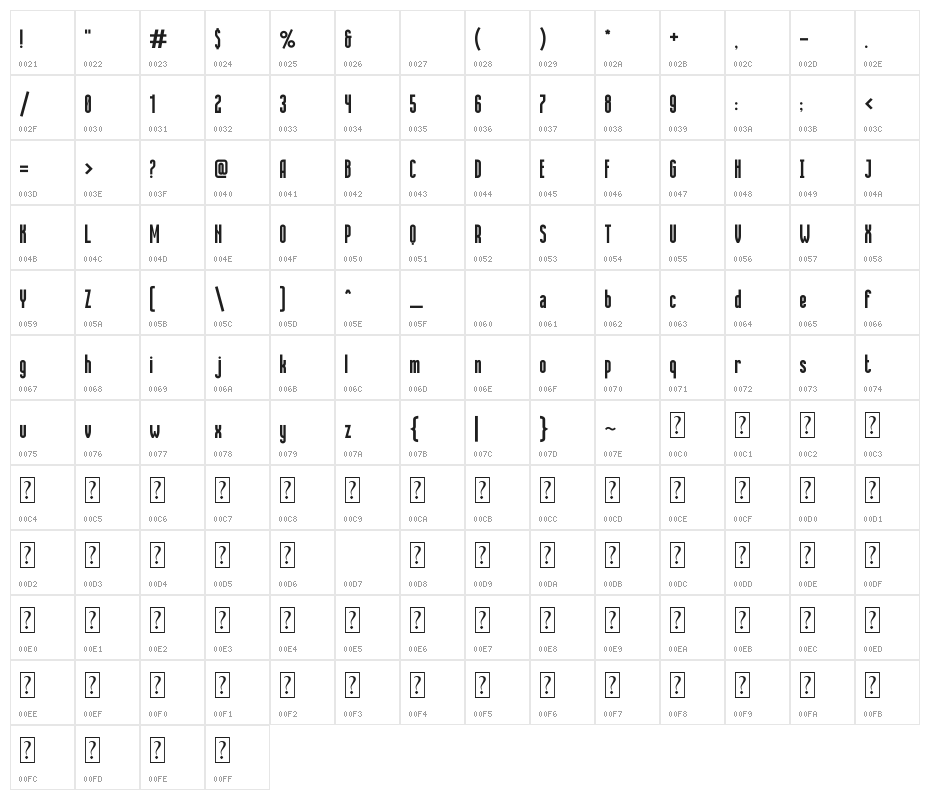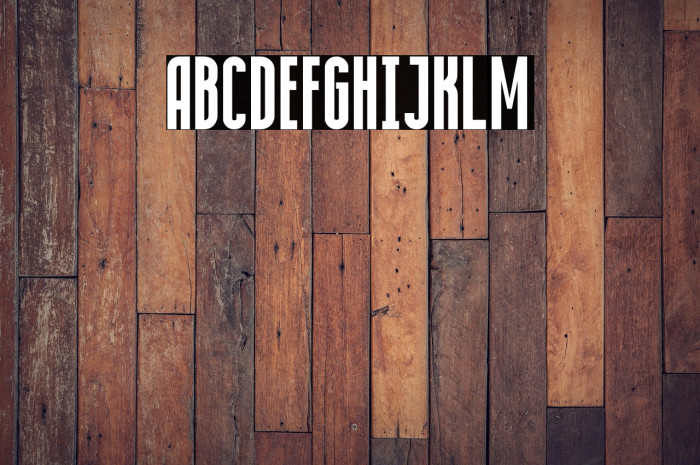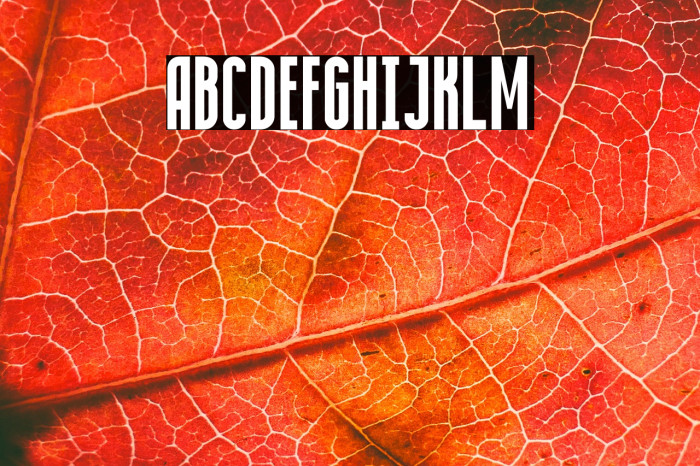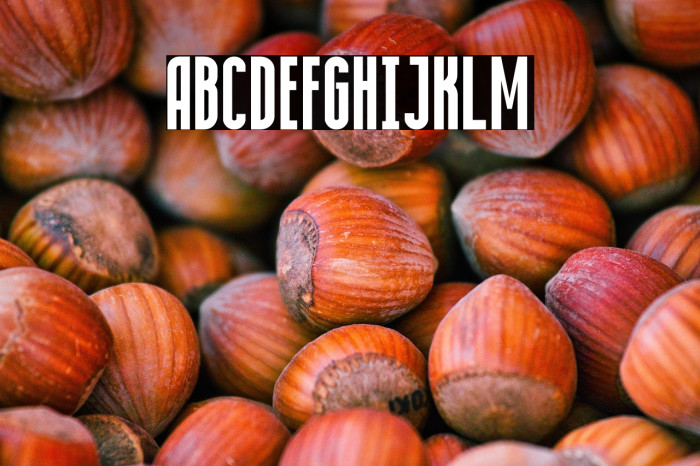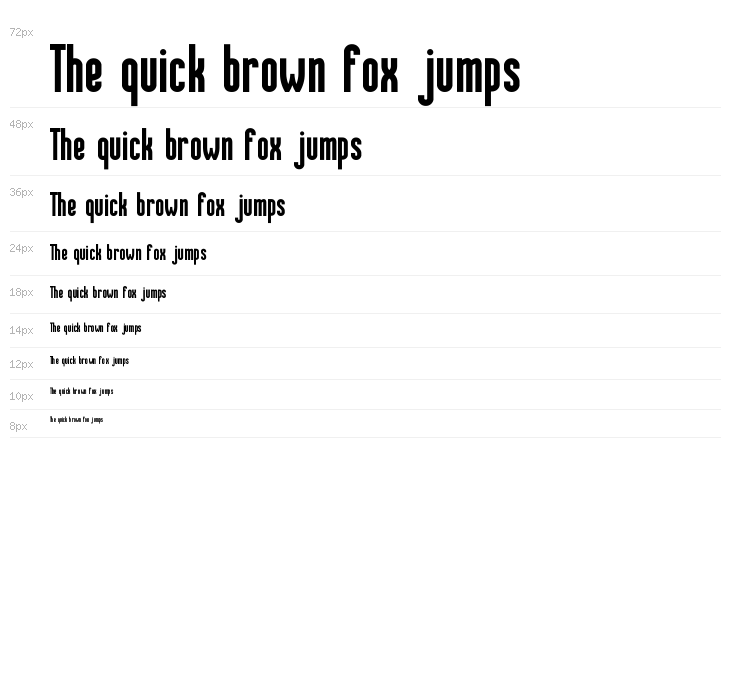
Condensed Bold Font
Condensed Bold Description
This font features a bold and condensed style, characterized by tall, narrow letters with a strong vertical emphasis. The uppercase and lowercase letters maintain a consistent width, creating a uniform appearance. The numerals are equally bold, ensuring readability and impact. Special characters are designed to match the overall boldness, making them stand out. The font's condensed nature allows for efficient use of space, making it ideal for headlines or titles where space is limited but impact is necessary.